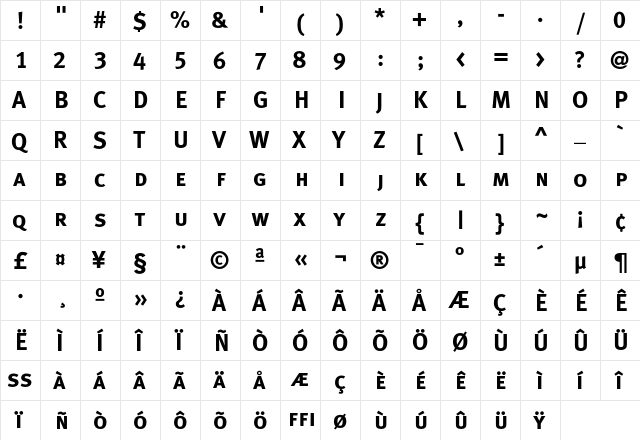
MetaPlus BoldCaps
Design Context for MetaPlus Typeface
MetaPlus takes a measured approach to typography — its balanced proportions and neutral character make it a reliable workhorse for both digital and print work. The heavy weight commands attention and anchors typographic hierarchies.